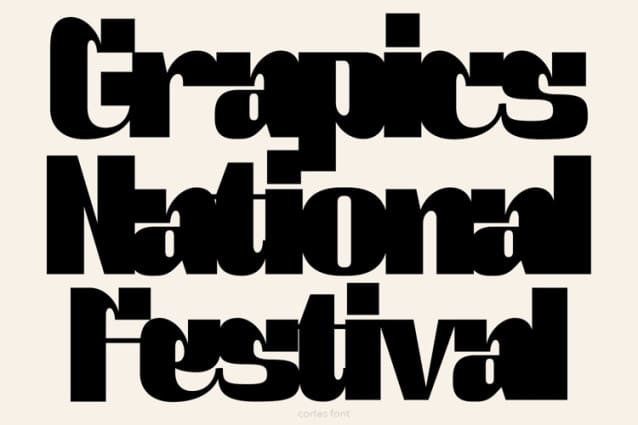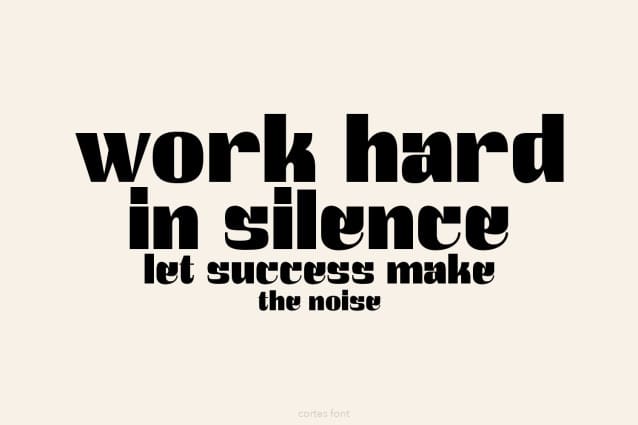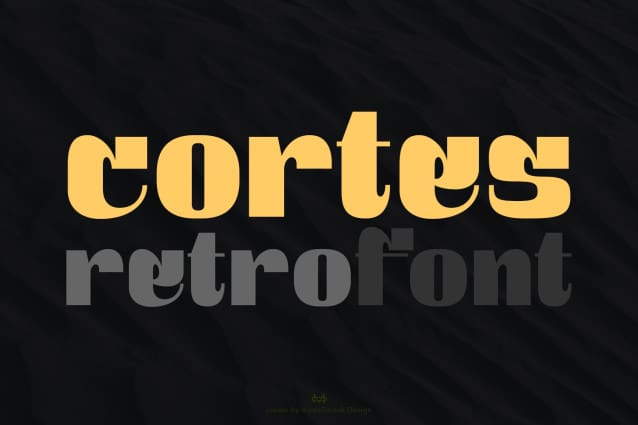
Cortes Font
Cortes Font is a retro display font, come with single weight, legible and expressive shapes. A lot of stylish alternates characters will makes this font suitable for your any project design. Ideal for logos, handwritten quotes, product packaging, header, poster, merchandise, social media & greeting cards.